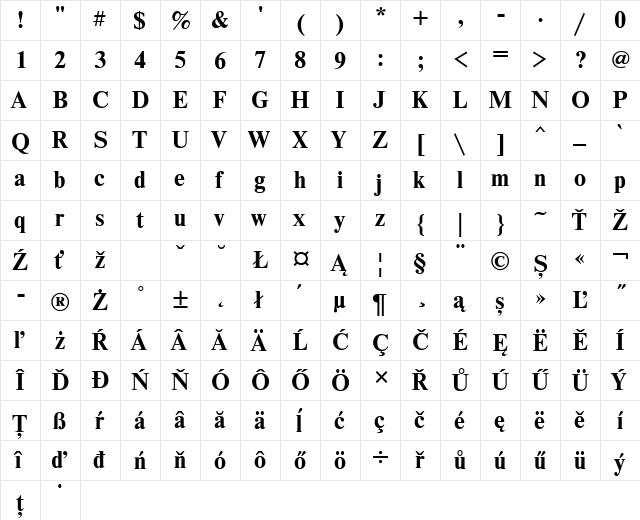
NewtonETT Bold Font Preview
NewtonETT Bold
NewtonETT Bold Font Details
Design Context for NewtonETT Typeface
NewtonETT offers clean, dependable letterforms without strong stylistic allegiance, making it a practical choice for designers who need flexibility. The heavy weight commands attention and anchors typographic hierarchies.